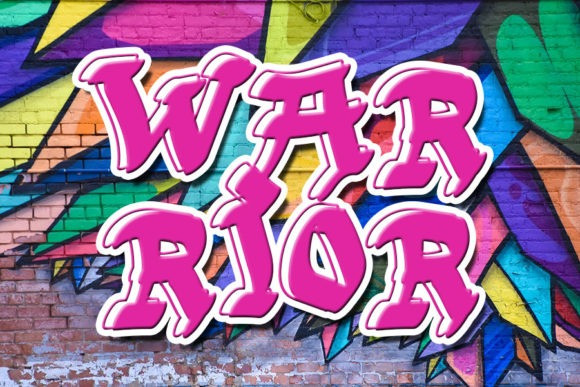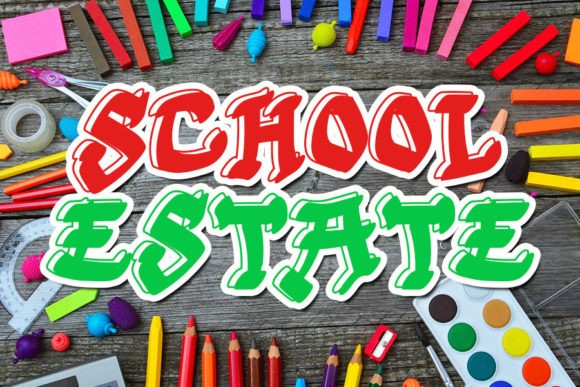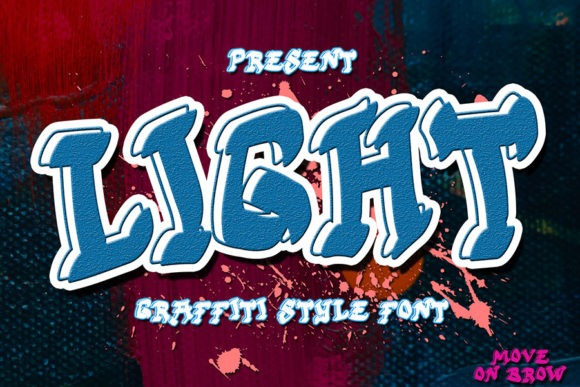
Light Font
Light Font is a cool and urban styled display font. Graffiti inspired and a bit dramatic, this font will instantly make your creations stand out.